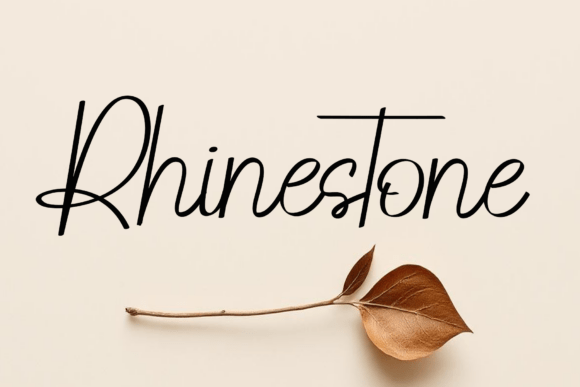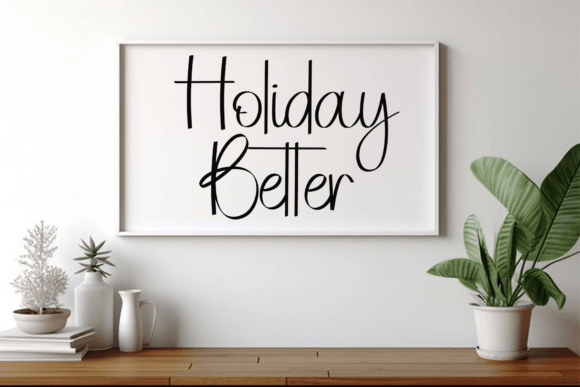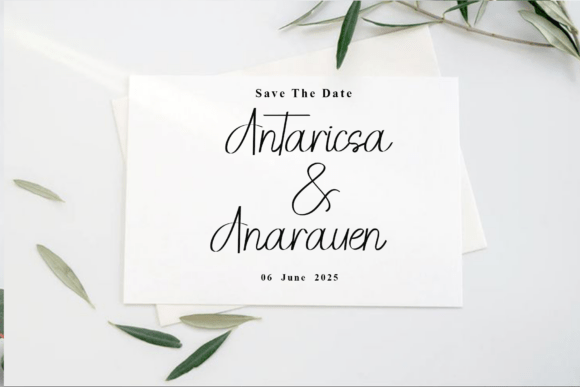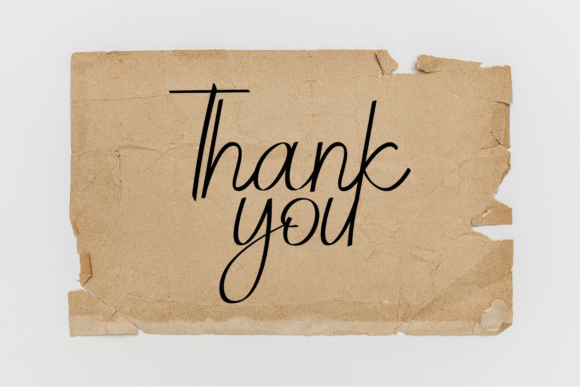
Introduction to Registered Font
Have you ever found yourself sitting at your desk, staring at a blank canvas, and suddenly, the perfect idea strikes? The words flow effortlessly, and your creative vision comes to life. That’s exactly what happened when I discovered the beautiful Registered Font. This charming, cursive handwritten font has become an essential design resource in my toolkit, and I’m excited to share its magic with you.
Whether you’re working on a wedding invitation, a fashion lookbook, or a marketing campaign, the Registered Font adds a touch of elegance and whimsy that’s hard to resist. Its high-quality design makes it perfect for use on a transparent background, allowing your message to shine through. And the best part? It’s available for free download, making it a valuable addition to any designer’s collection.
As a designer, you know how much a great font can elevate a project. That’s why I’m thrilled to introduce you to the Registered Font – a game-changing design element that will take your creative projects to the next level.
Key Features of Registered Font
Honest Review: Registered Font
As a designer, I’m always on the lookout for high-quality design resources to elevate my creative projects. Recently, I had the chance to try out the Registered Font, and here’s my honest review.
What works well: ✨ The Registered Font is incredibly versatile and can be used for a wide range of projects, from business cards to logos. Its clean and modern design makes it perfect for creating a professional look. The font is also highly customizable, allowing you to adjust the size, color, and style to suit your needs.
What doesn’t work well: ⚠️ One of the limitations of the Registered Font is that it doesn’t come with a transparent background option. This can make it difficult to use on certain design elements, such as backgrounds or overlays. Additionally, the font can be a bit pricey, especially for commercial use.
Overall impression: I was really impressed with the quality of the Registered Font, and I think it would be a great addition to any designer’s toolkit. However, I would have liked to see a transparent background option included. If you’re looking for a high-quality font for your next creative project, I would definitely recommend checking out the Registered Font.
Tips for Getting the Most Out of Registered Font
Registered Font is a high-quality design resource that can be used in a variety of creative projects. To get the most out of it, use it in conjunction with other design elements, such as images and graphics. You can also experiment with different font sizes, colors, and alignments to create a unique look. Additionally, make sure to check the licensing terms for the font to ensure you are using it correctly.
Common Use Cases for Registered Font
Registered Font is commonly used in a variety of design projects, including business cards, brochures, and websites. It can also be used in presentations, reports, and other documents. The font is particularly useful for creating a professional-looking design with a transparent background, making it a valuable resource for designers and non-designers alike.